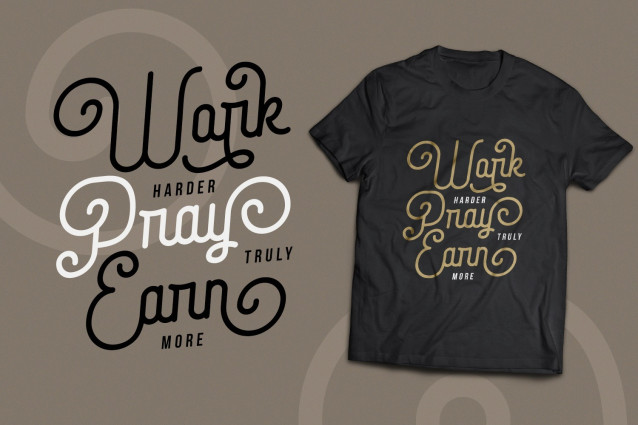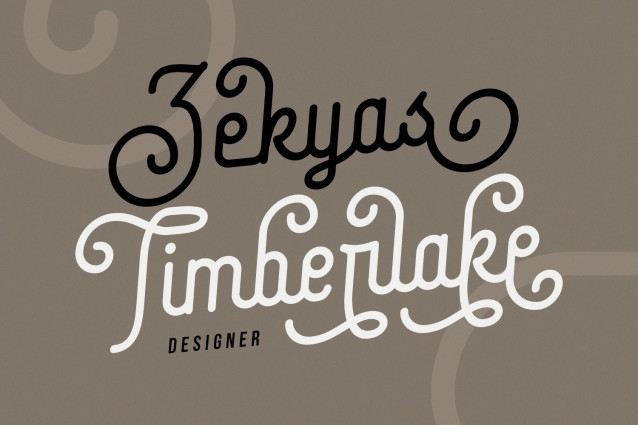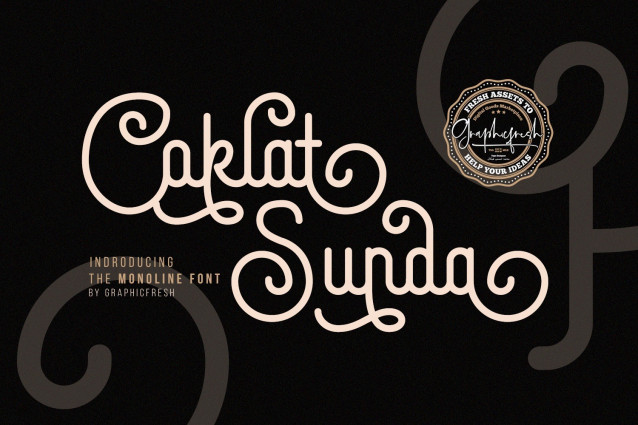
Coklat Sunda Script Font
Coklat Sunda Script Font is a monoline script family including Regular and Slant versions . it’s perfect for logos, name card, magazine layouts, invitations, headers, or even large-scale artwork. Wolfer includes 2 OTF & TTF files within the Zip folder.